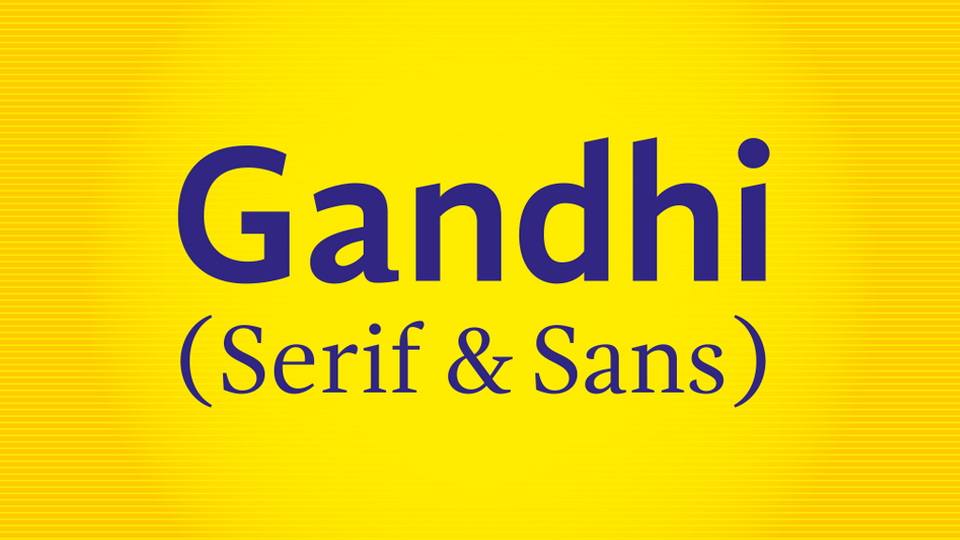
Download Gandhi Serif and Gandhi Sans, a typeface designed for the correct legibility for their communication. Ganhdi fonts were made available for anyone who needs to write documents for their office or common use.
Designer: Raúl Plancarte